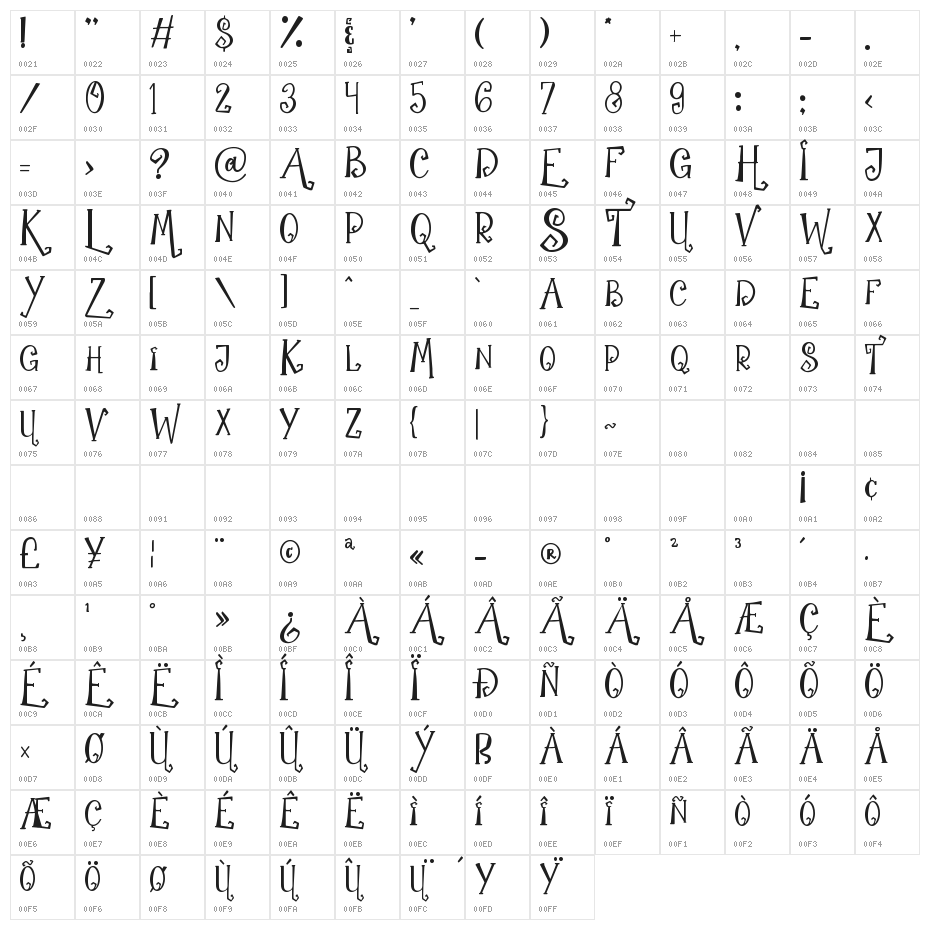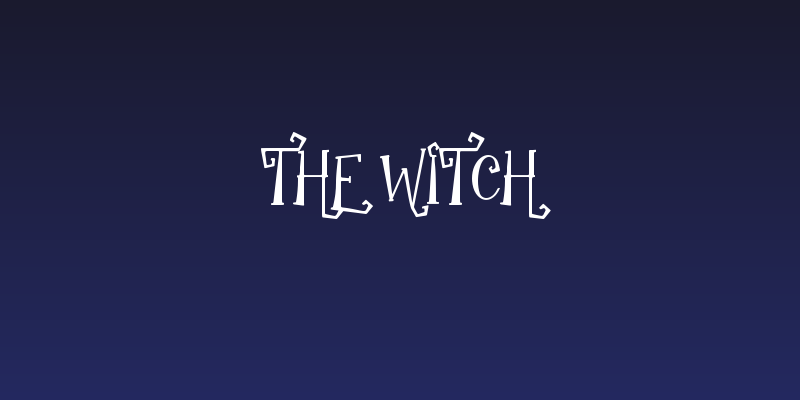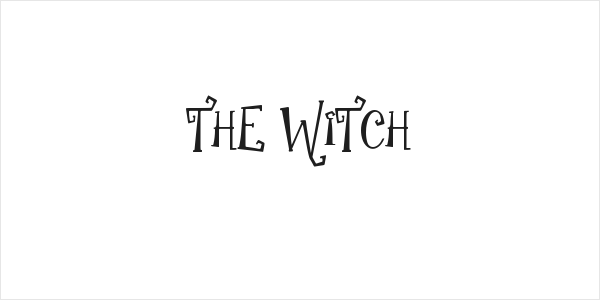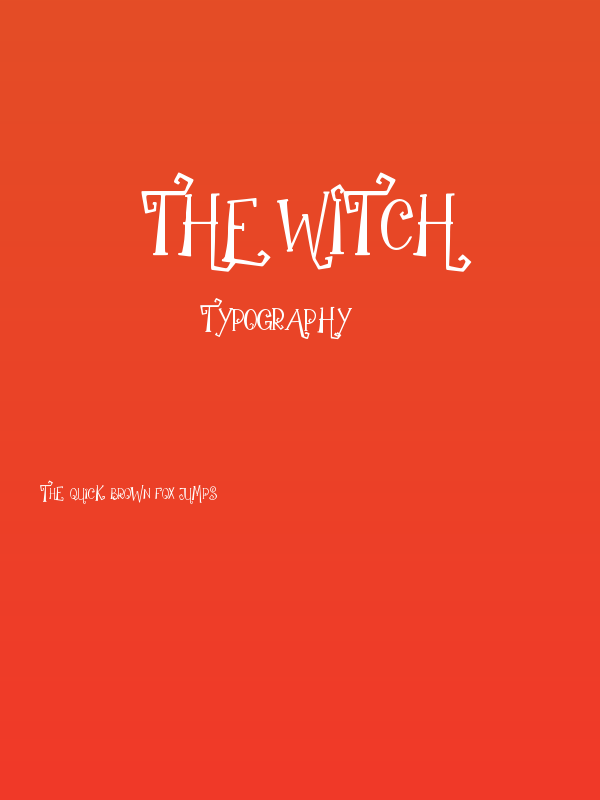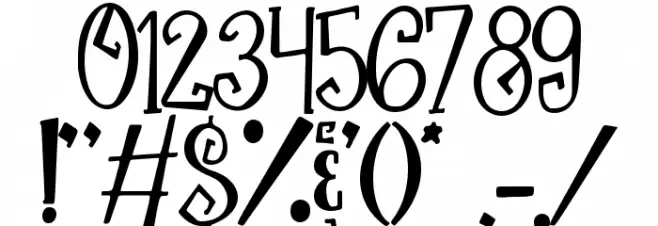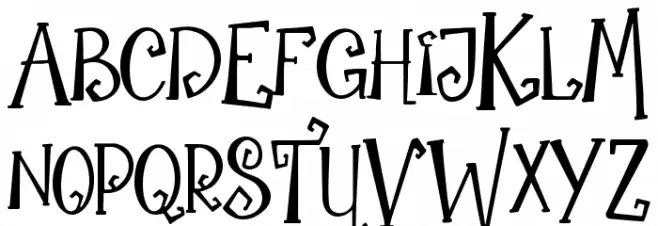
the Witch Font
the Witch Description
This font exudes a whimsical and playful charm, characterized by its quirky and irregular letterforms. Each character features unique embellishments, such as curls and unexpected angles, giving it a magical and enchanting appearance. The font maintains a consistent stroke weight, providing a sense of balance despite its unconventional style. The uppercase and lowercase letters are distinct yet harmonious, with numbers and special characters following the same imaginative design. This font is perfect for projects that require a touch of fantasy and creativity.
| Proposed Projects | Ideal for children's books, fantasy-themed posters, Halloween invitations, and creative branding projects. |